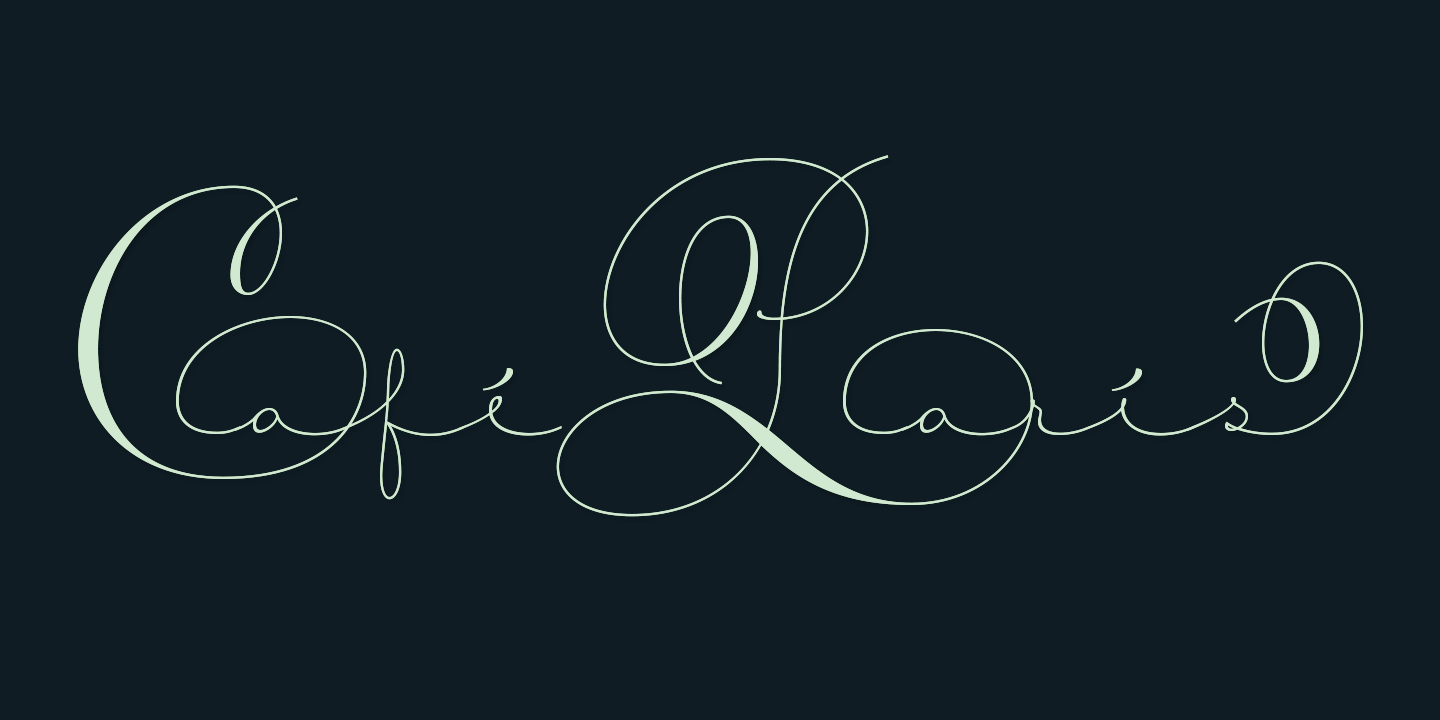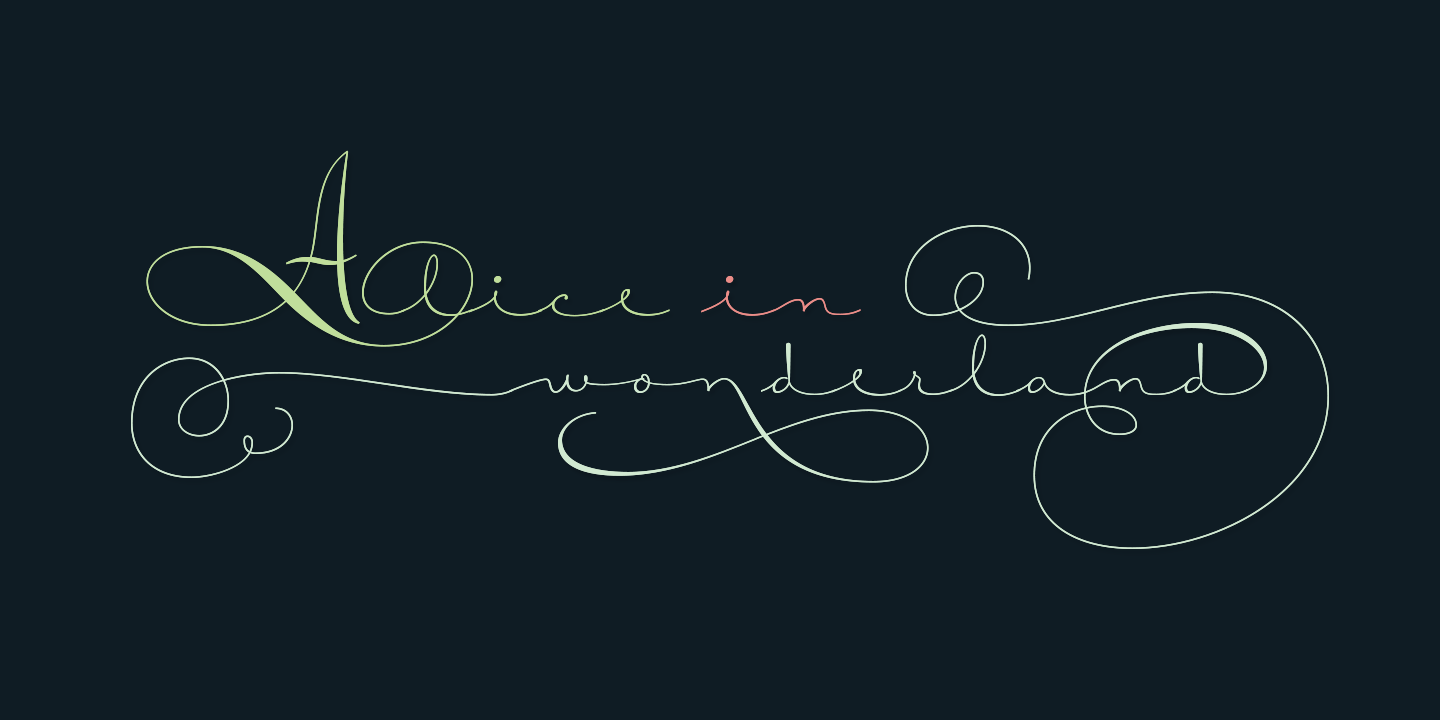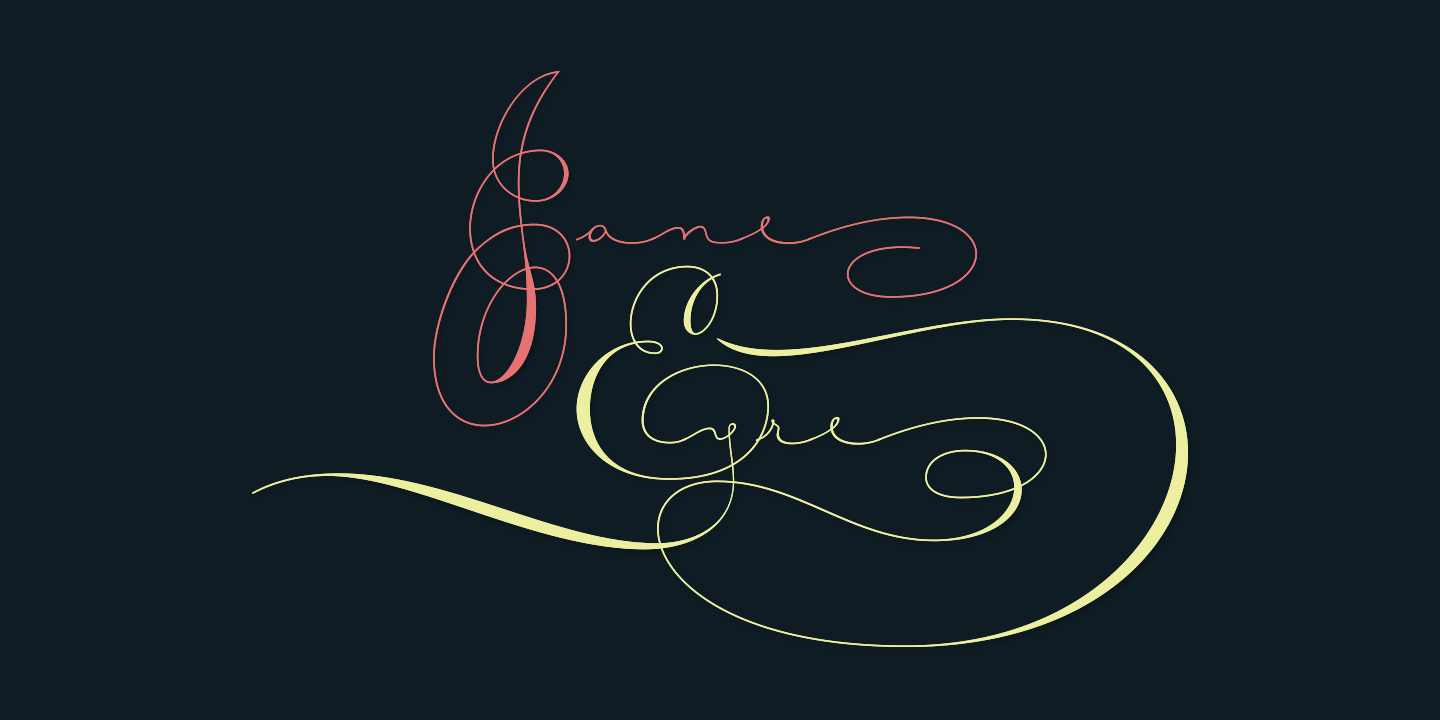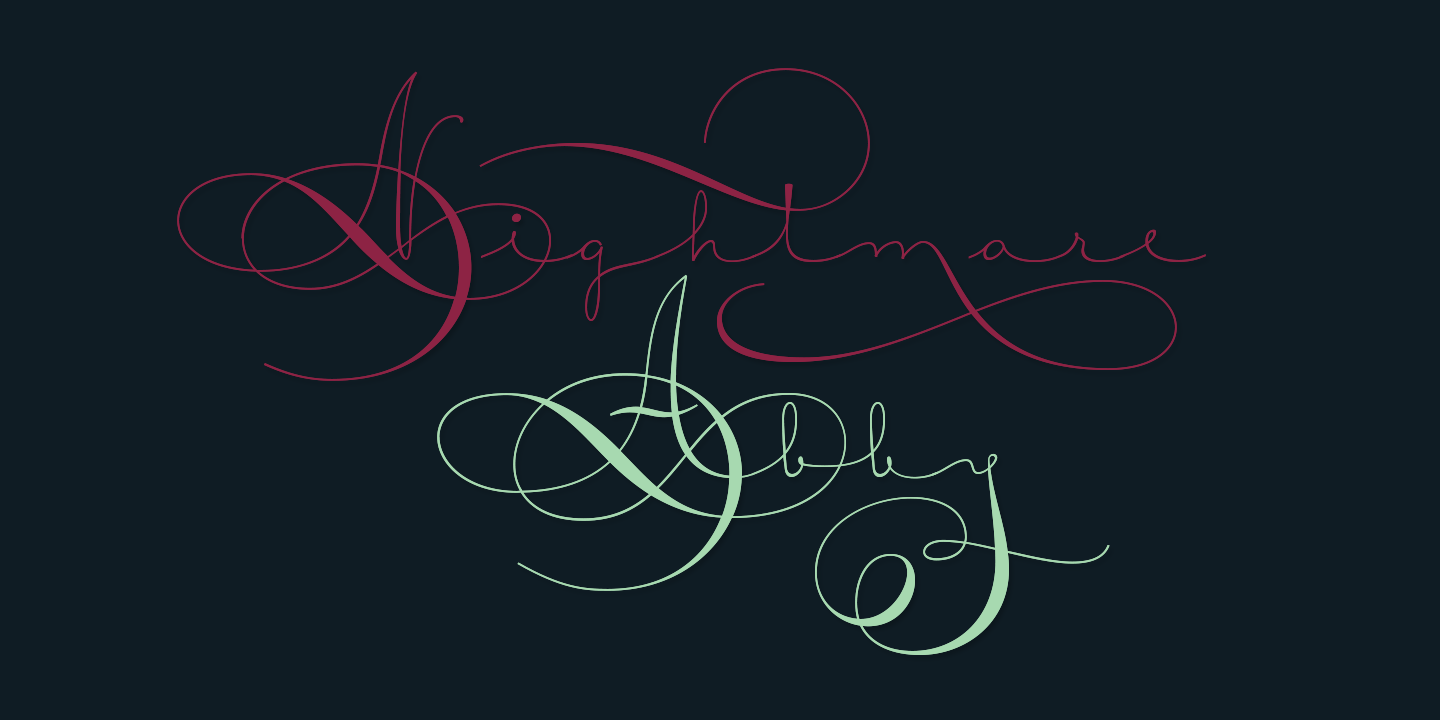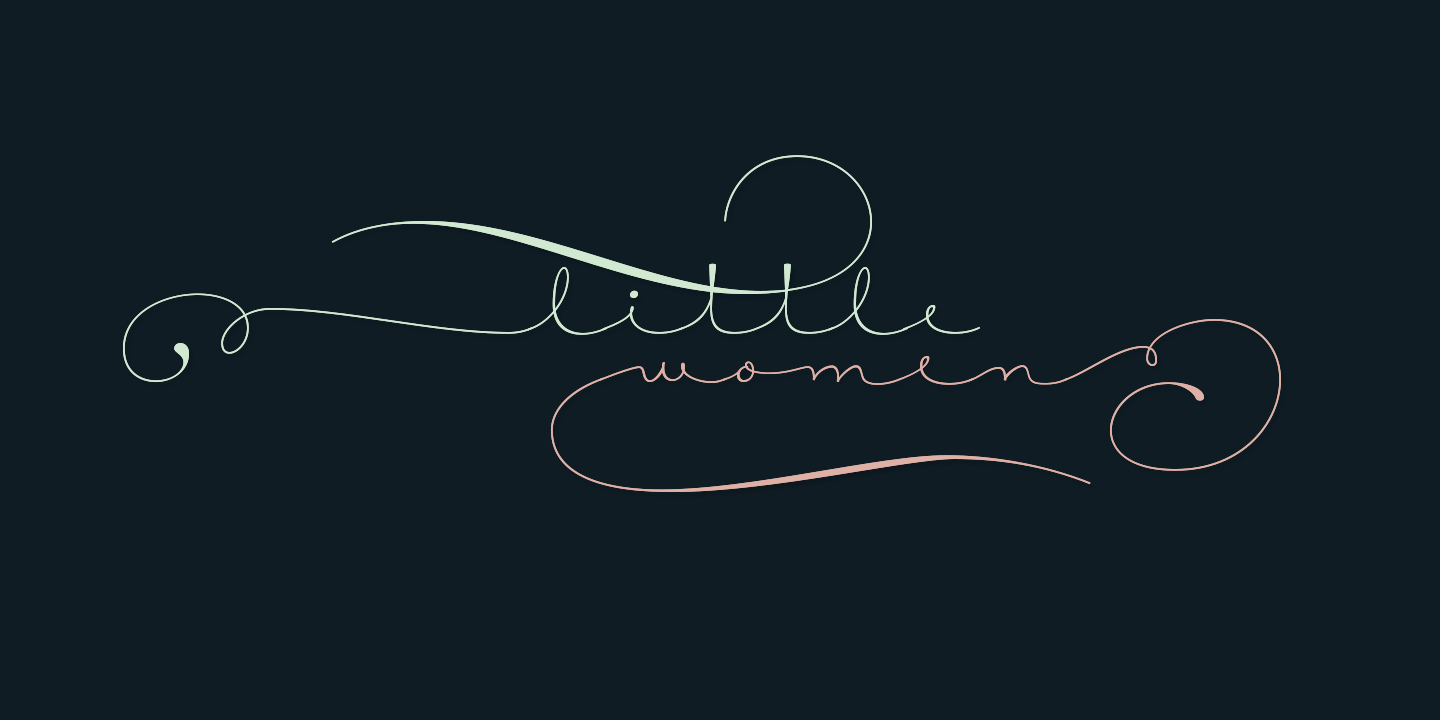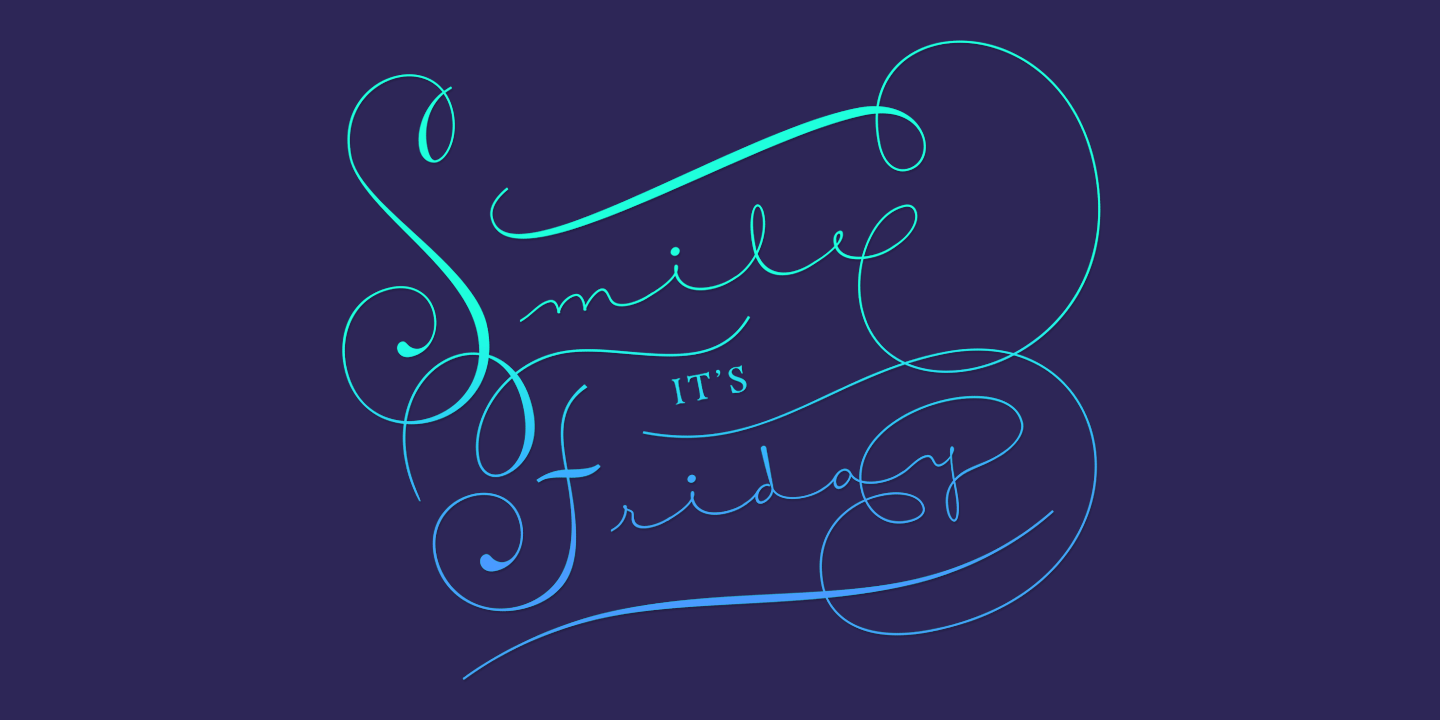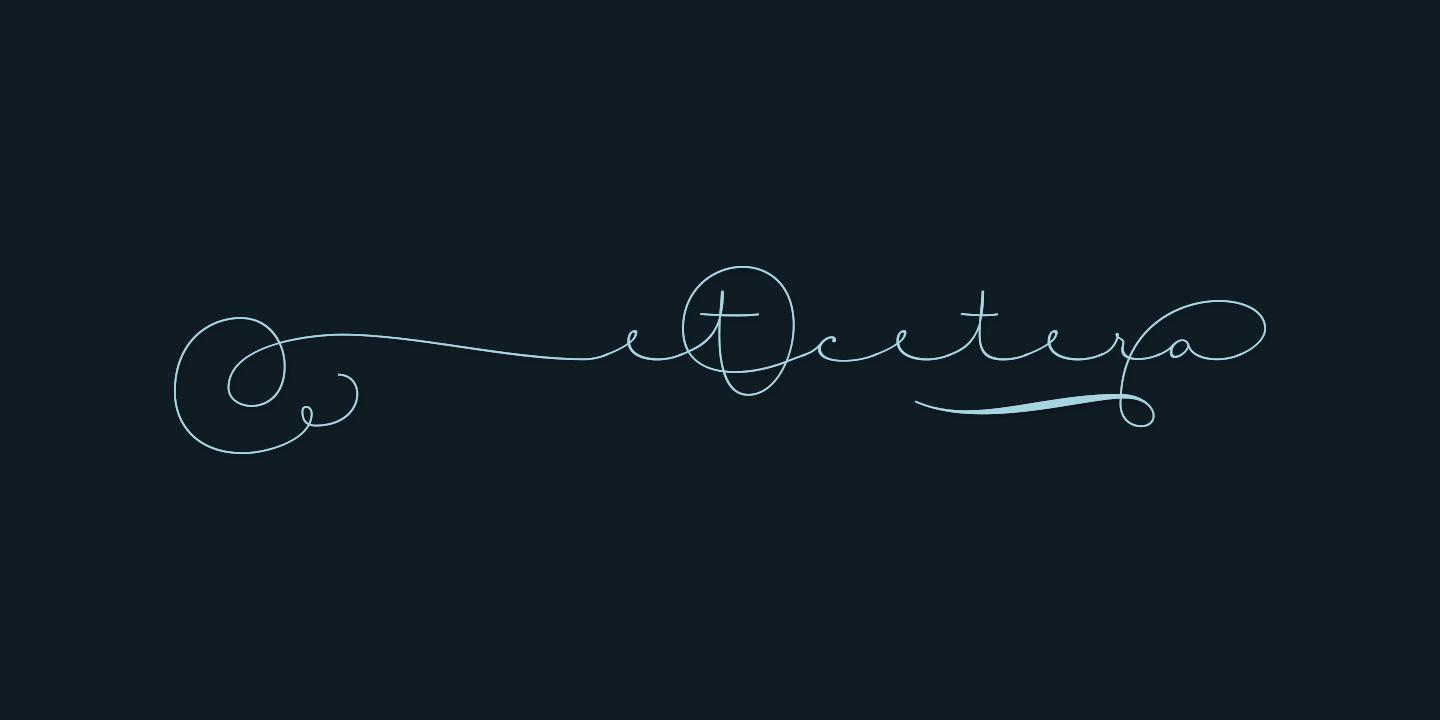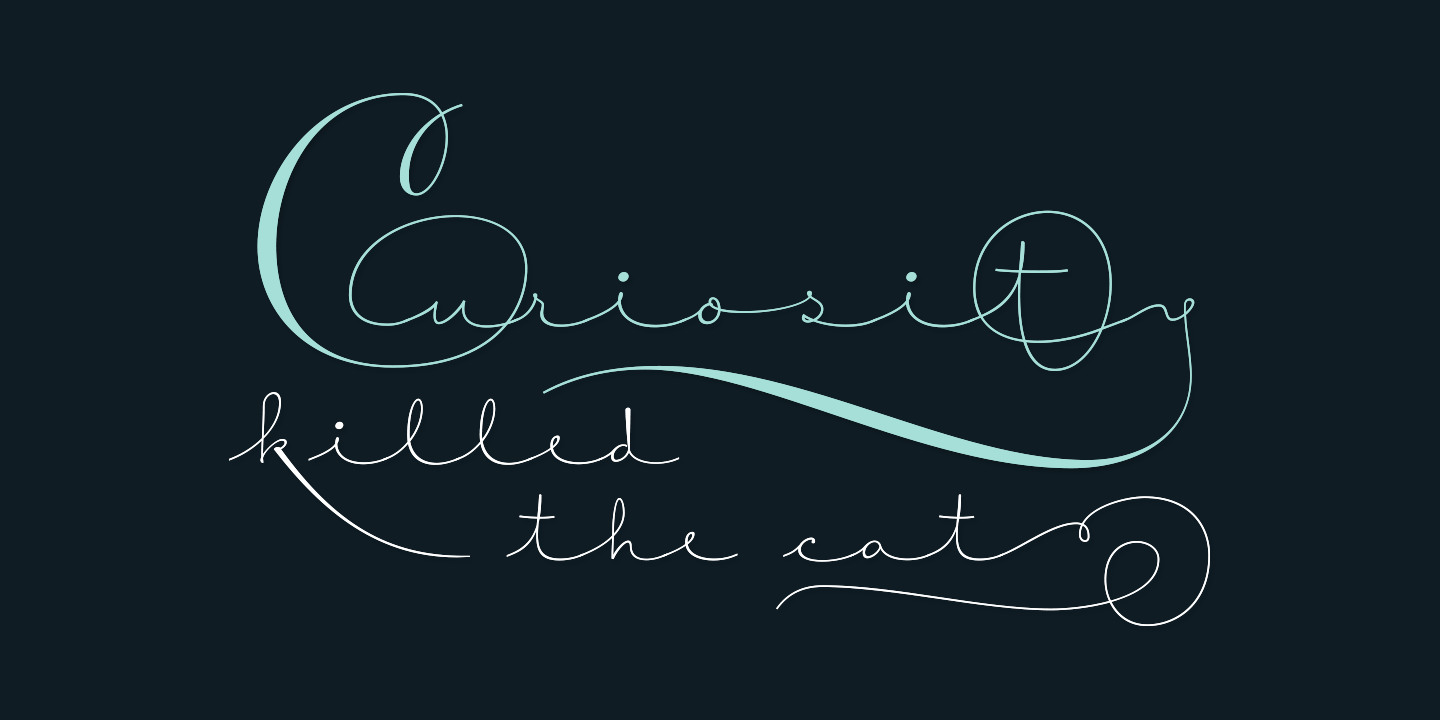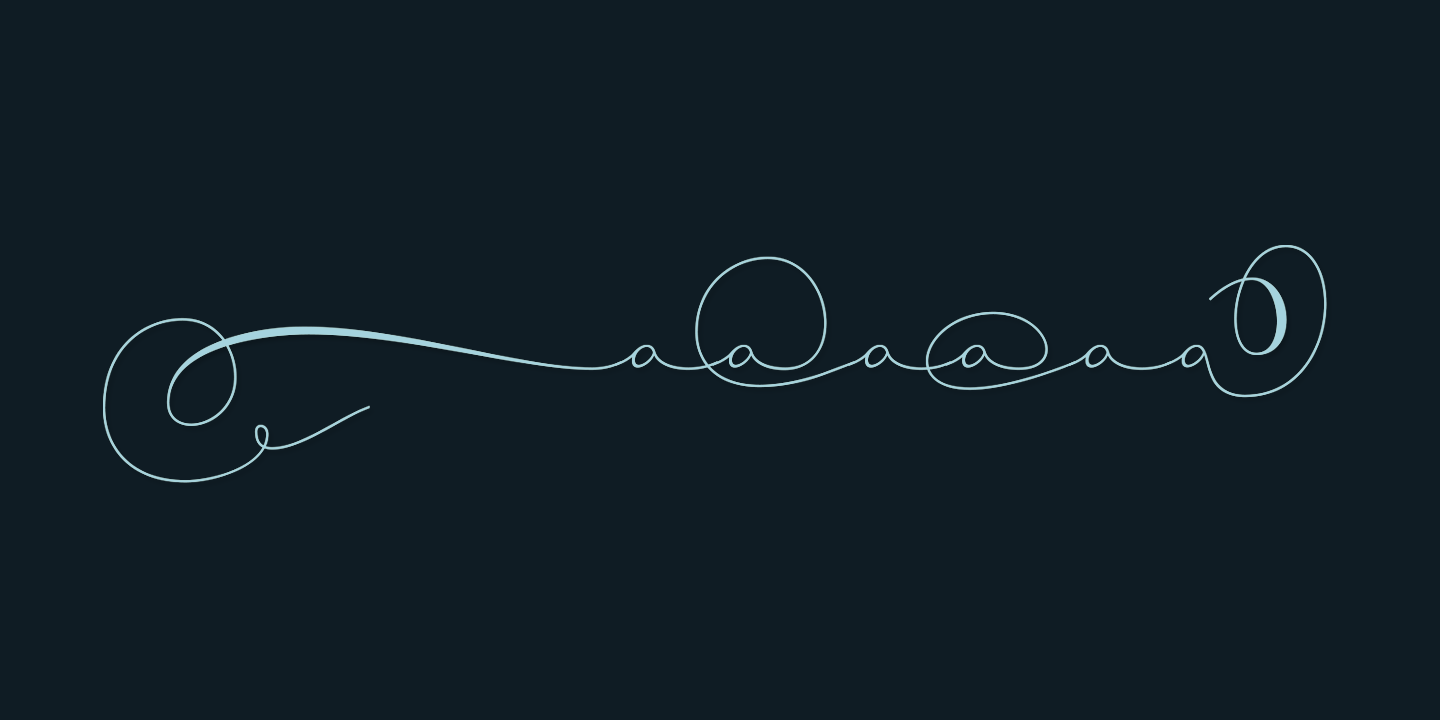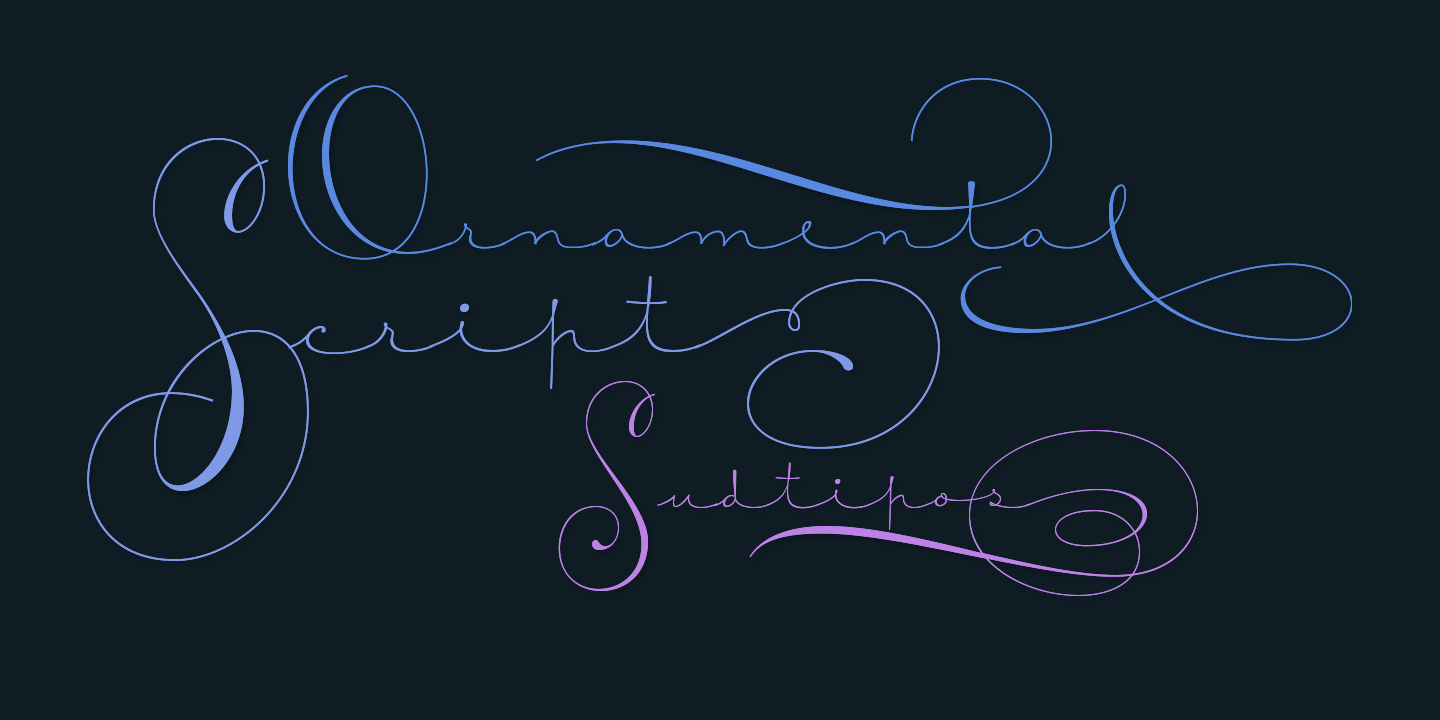
Courtesy Script Pro
Font Family by Sudtipos
As in Victorian times, the precious, hand-lettered look of custom stationery is back in vogue. Enter Courtesy Script, an original creation by Alejandro Paul.
Courtesy captures the elegance and propriety of finely practiced Spencerian penmanship, in particular the Zanerian school. Its lowercase is notably understated, a simple monoline with very wide connections that ease readability. In the capitals, Courtesy adds variety in both the weight of the strokes, and in degrees of flourish ? from merely fancy to over-the-top engrossery.
Based on an alphabet found in a 19th-century penmanship journal, Ale created hundreds of additional, stylistically complementary letterforms. Alternate capitals and lowercase letters, swashed lowercase forms, and ending and ornamental swashes; numerals, punctuation, and non-English and accented characters.
With virtually endless ways to customize its use, Courtesy helps designers create fluid, signature looks on stationery and invitations, book covers, fashion layouts, and packaging.